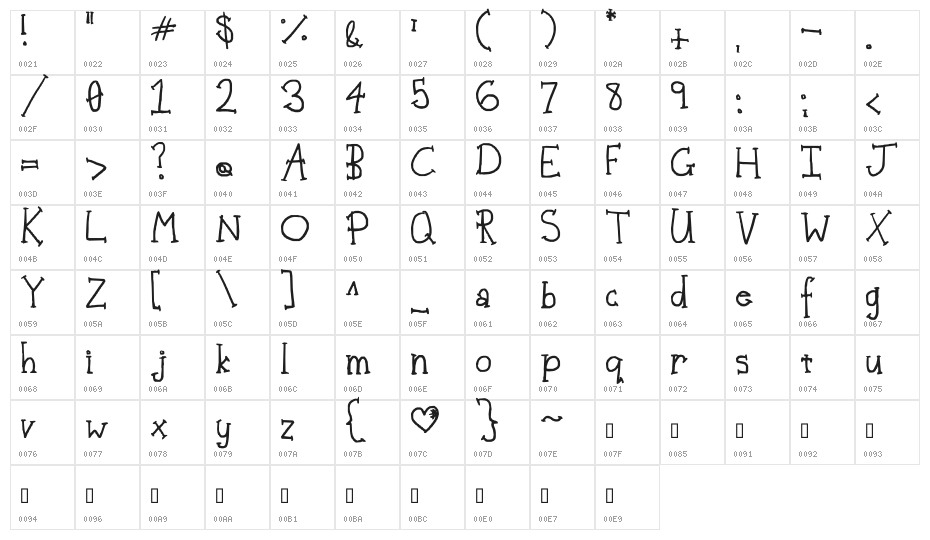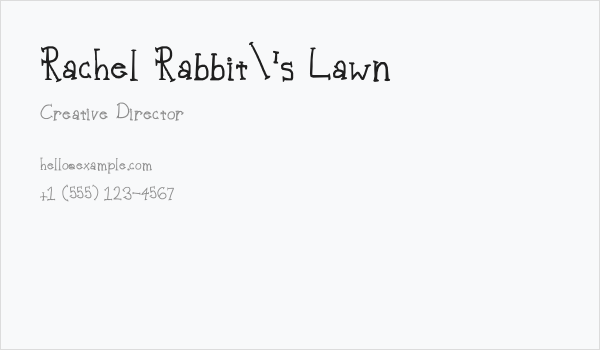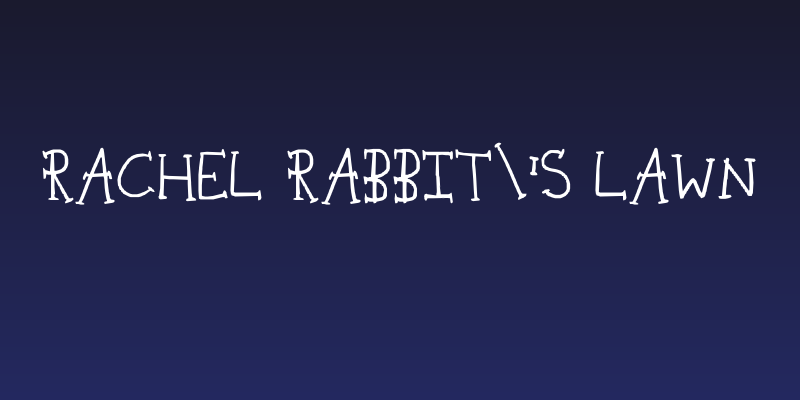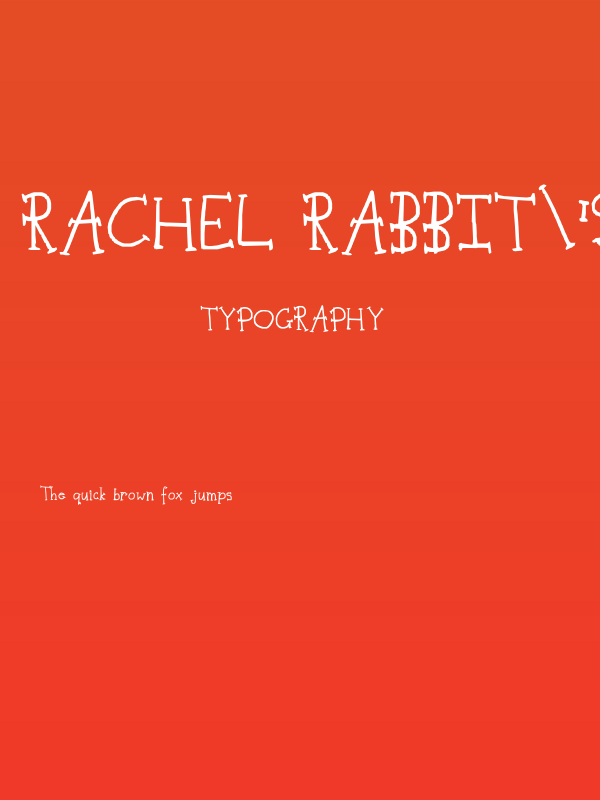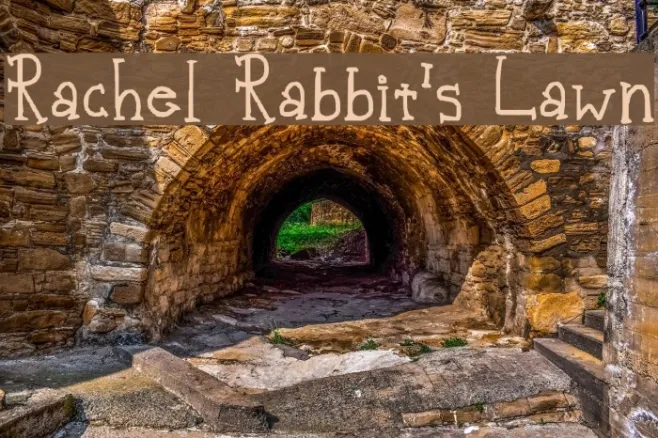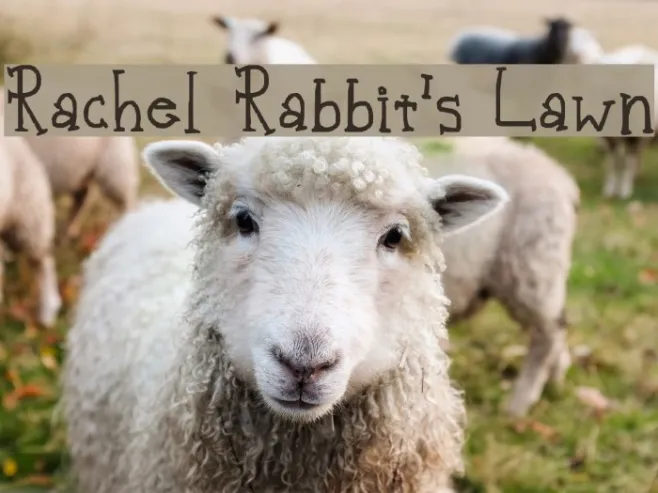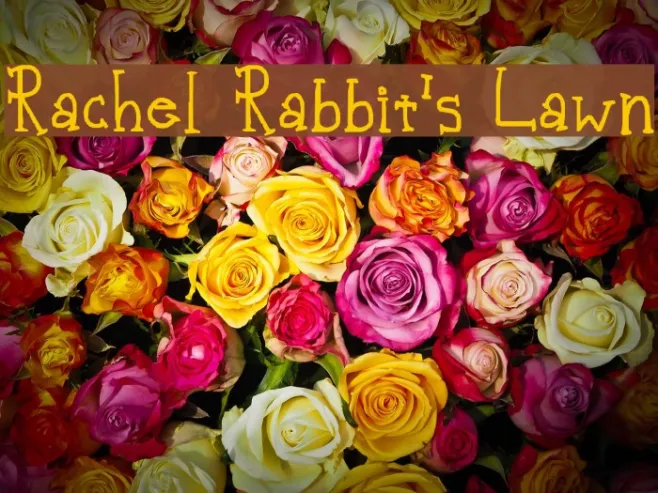
Rachel Rabbit's Lawn Font
Rachel Rabbit's Lawn Description
This font exudes a playful and whimsical charm, characterized by its irregular, hand-drawn appearance. The letters have a slightly uneven baseline, adding to the casual and informal feel. The strokes are varied, with some letters featuring thicker lines and others thinner, creating a dynamic visual texture. The uppercase letters are tall and slightly narrow, while the lowercase letters are more rounded and compact. The numbers and special characters maintain the same quirky style, ensuring consistency throughout. This font is perfect for projects that require a touch of fun and creativity.
| Overall Style | Whimsical |
| Proposed Projects | Ideal for children's books, greeting cards, playful branding, and creative posters. |